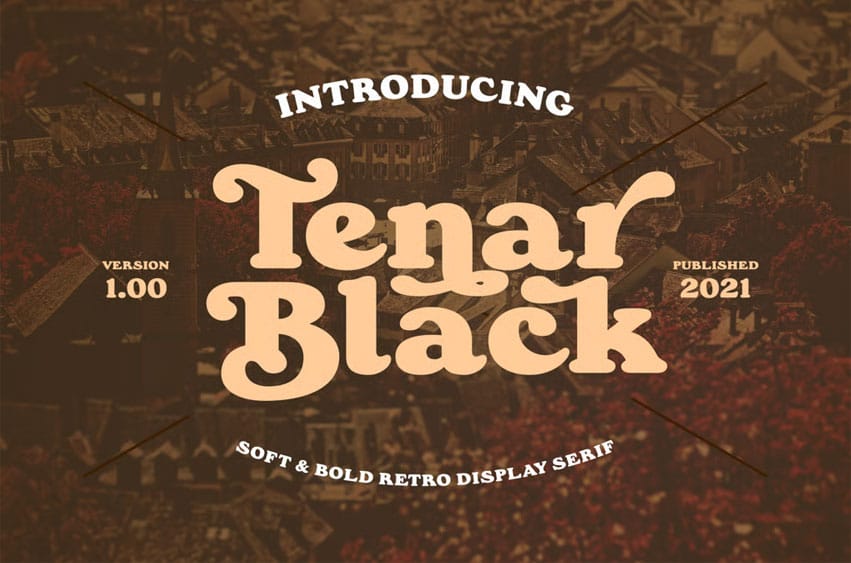
Tenar Black Font offers designers a unique blend of Souvenir and Cooper Black influences, characterized by its durable appearance and elegant curves. This heavy display serif is ideal for making a strong visual impact in any design project.
Tenar Black has 362 glyphs, providing a rich typographic palette, includes alternates and ligatures for creative versatility, and supports 61 Latin languages, enhancing its global utility.